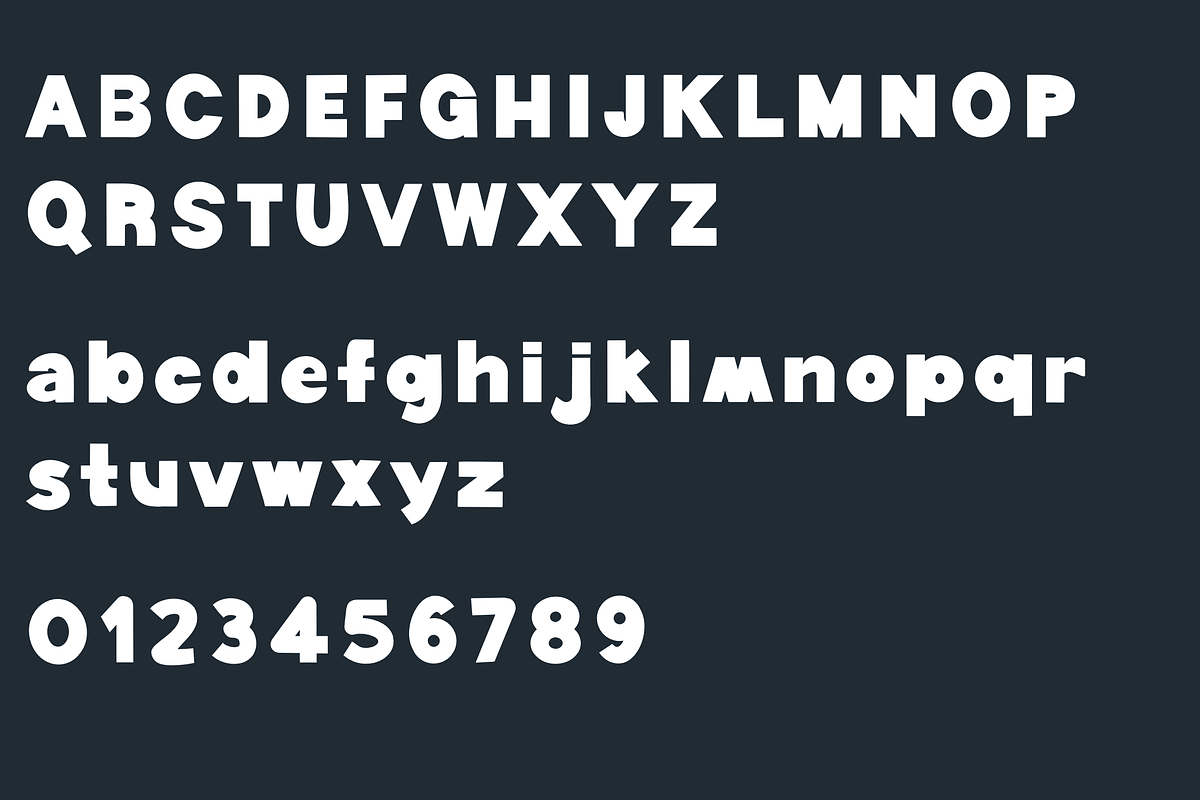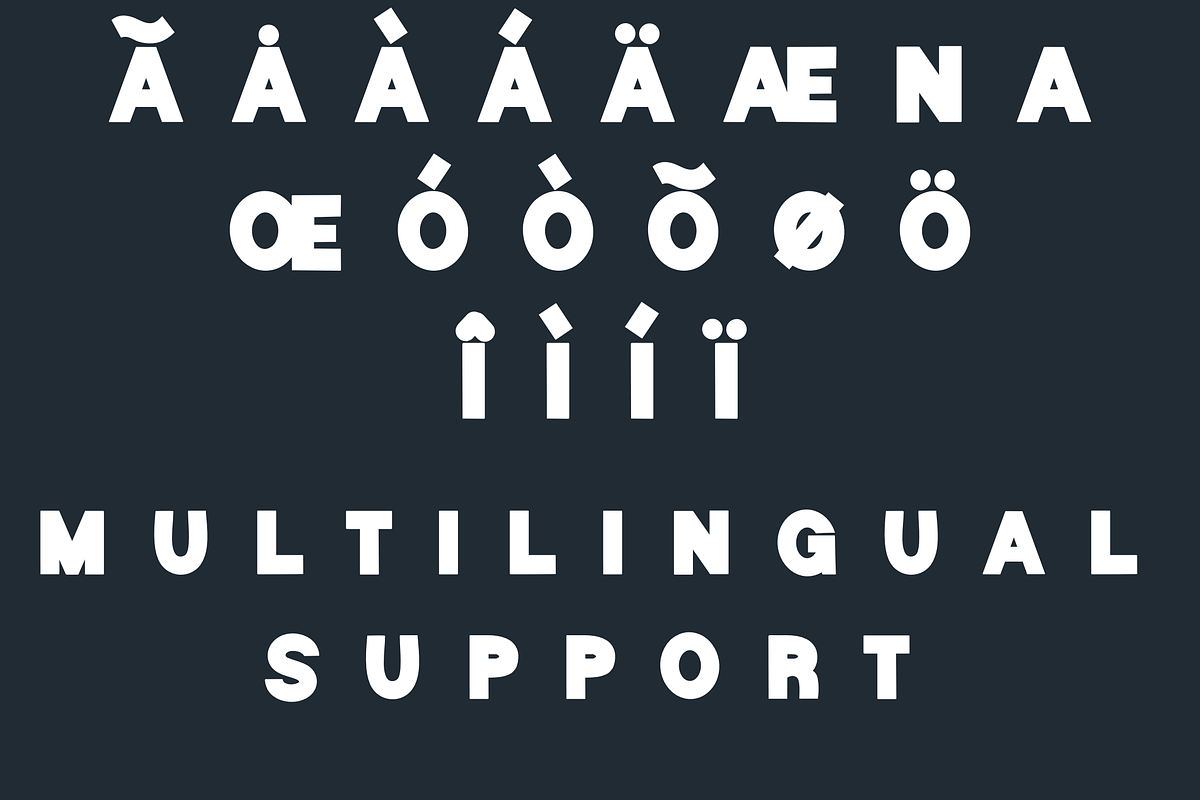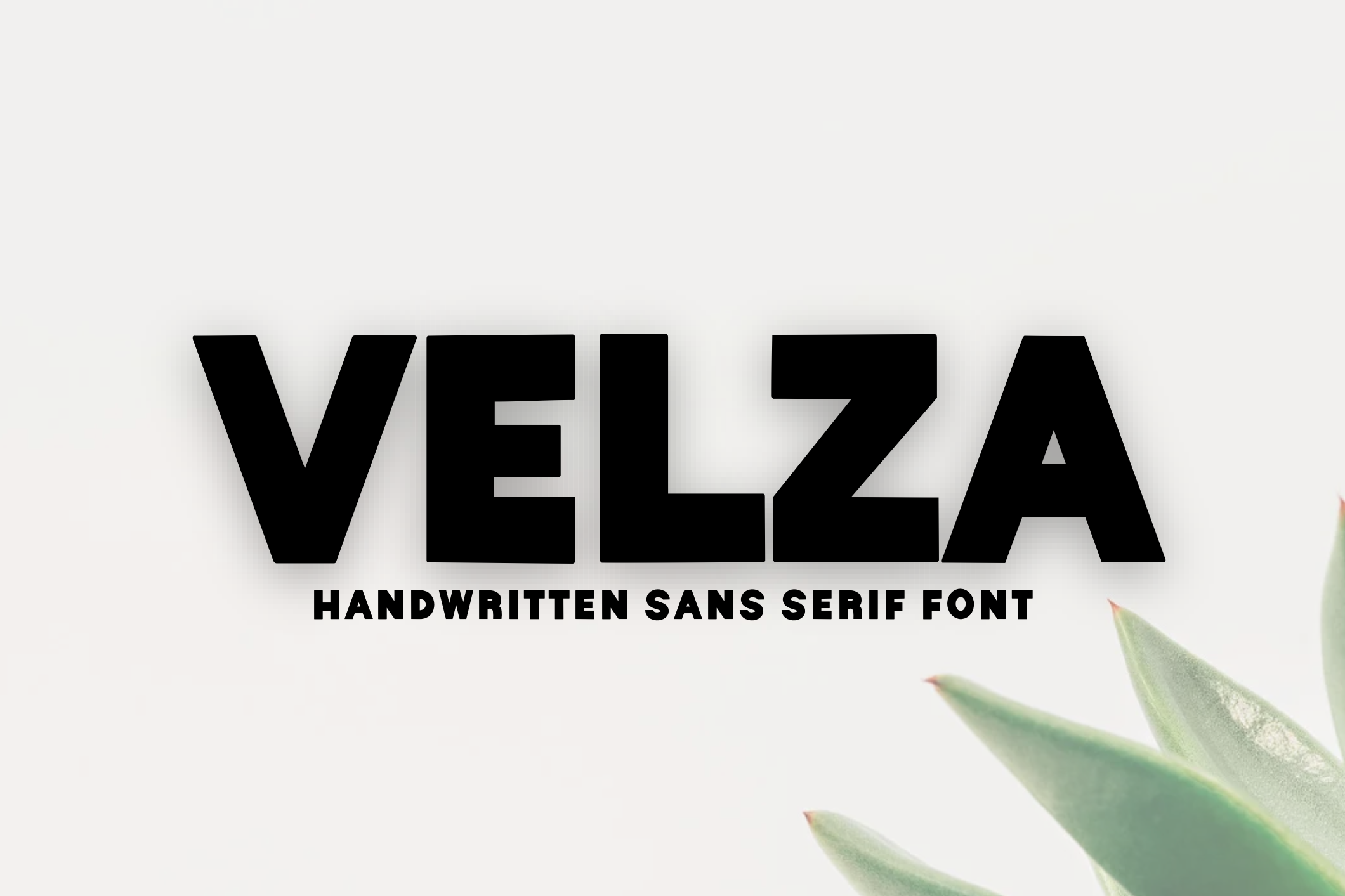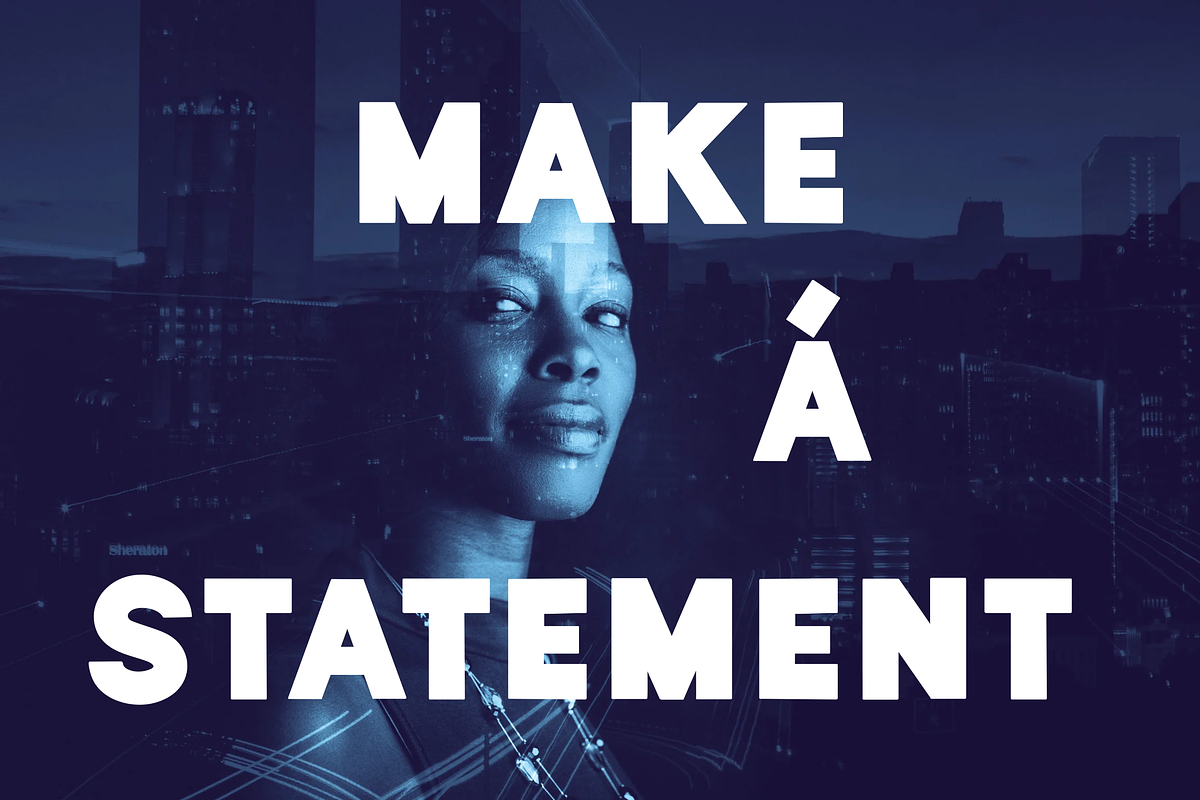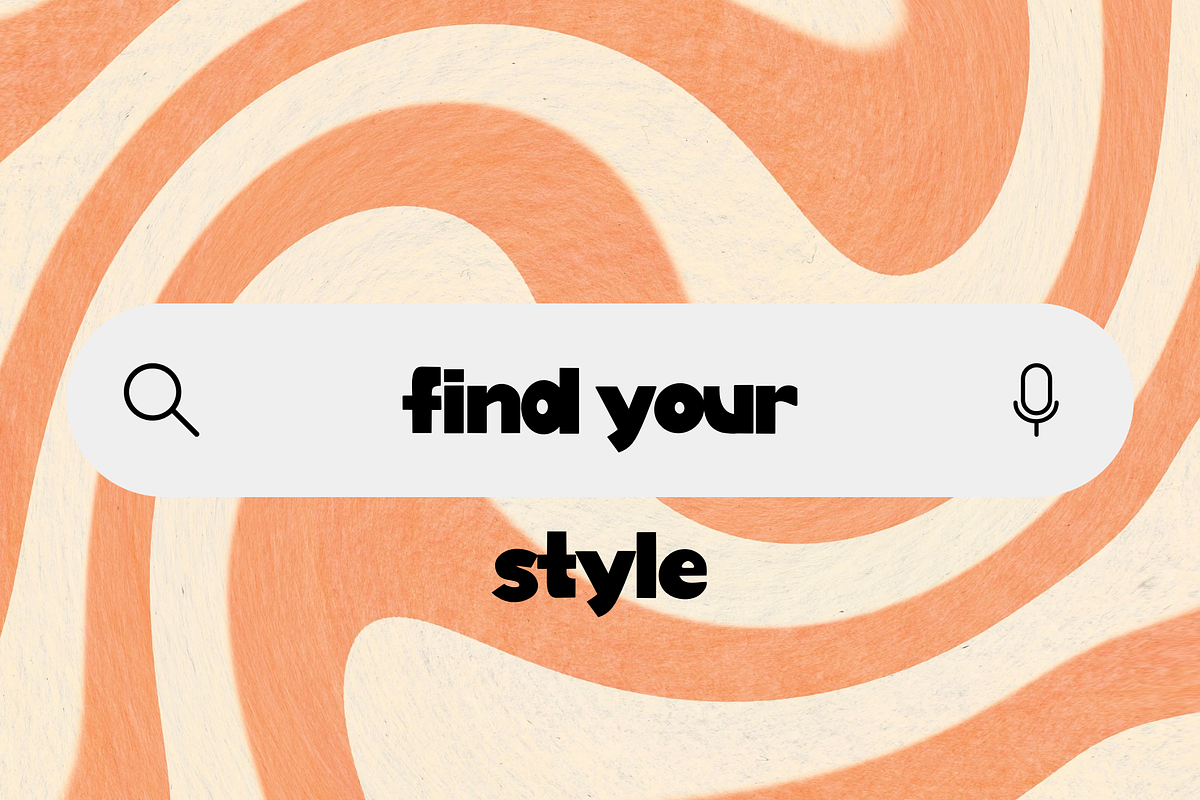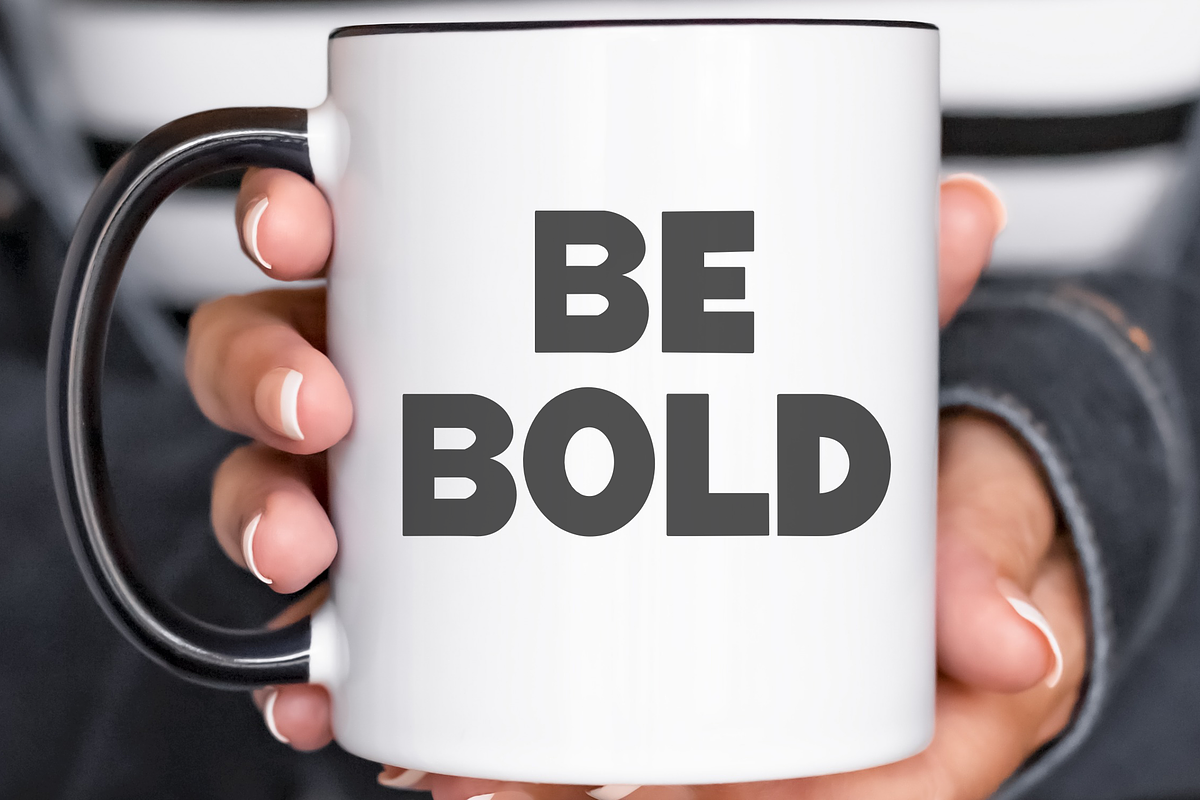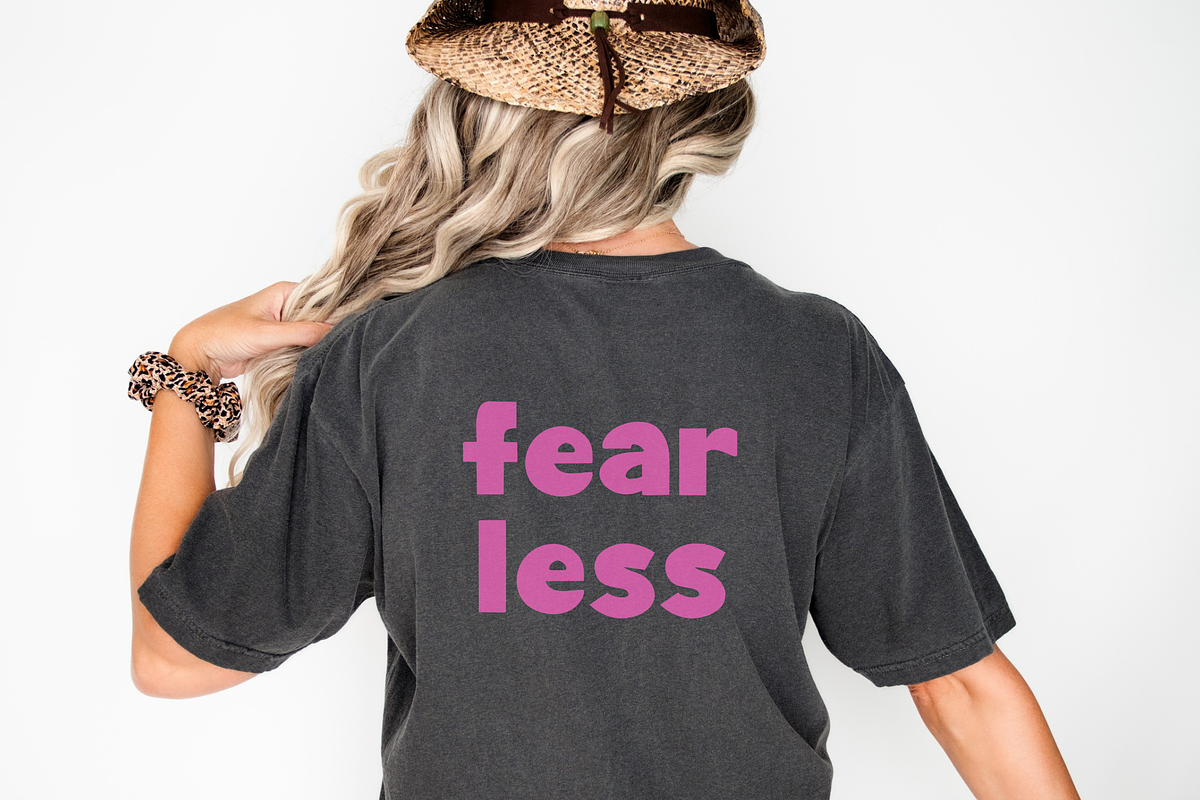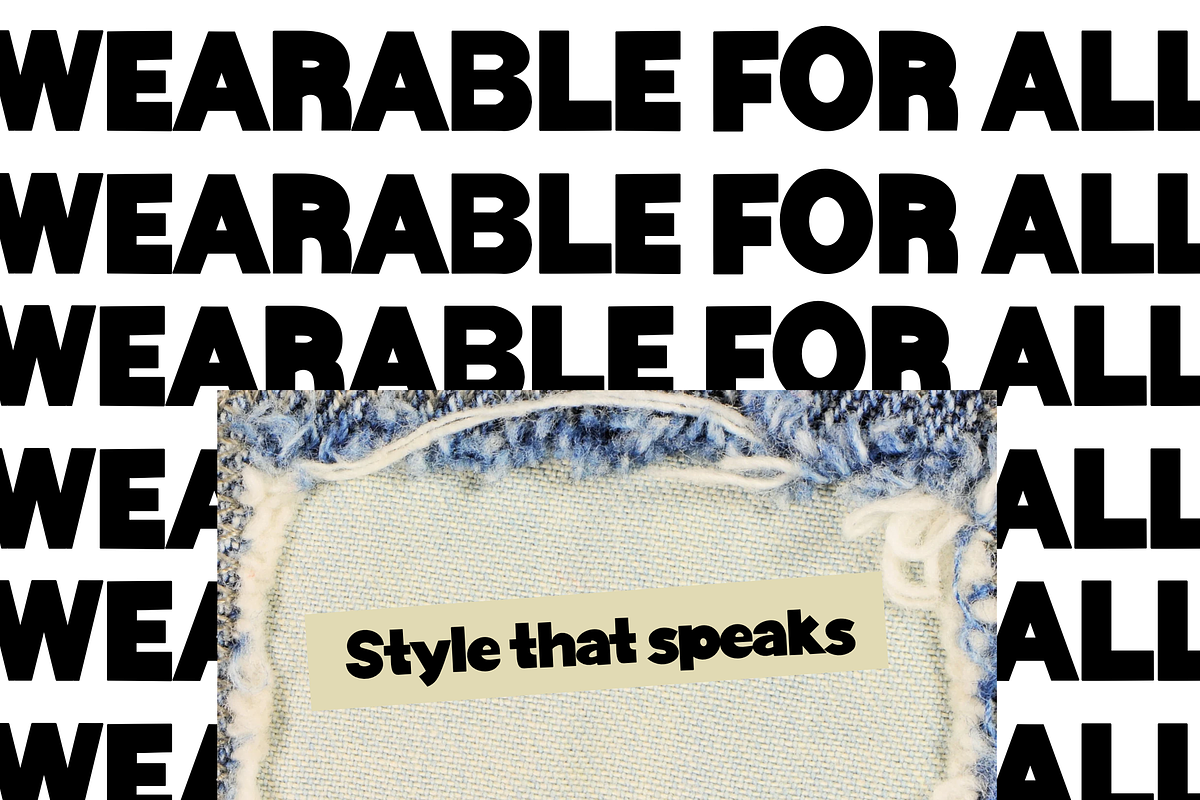
Velsa - Bold sans font
Meet Velsa, a bold handwritten sans-serif font designed to make a statement! With its clean yet playful strokes, Velsa combines modern style with the charm of handcrafted lettering. Perfect for small business owners, graphic designers, and creatives, this font brings a bold and approachable vibe to logos, social media posts, branding, packaging, and more!
Features: Uppercase, Lowercase, Numbers & punctuation & Multilingual support.